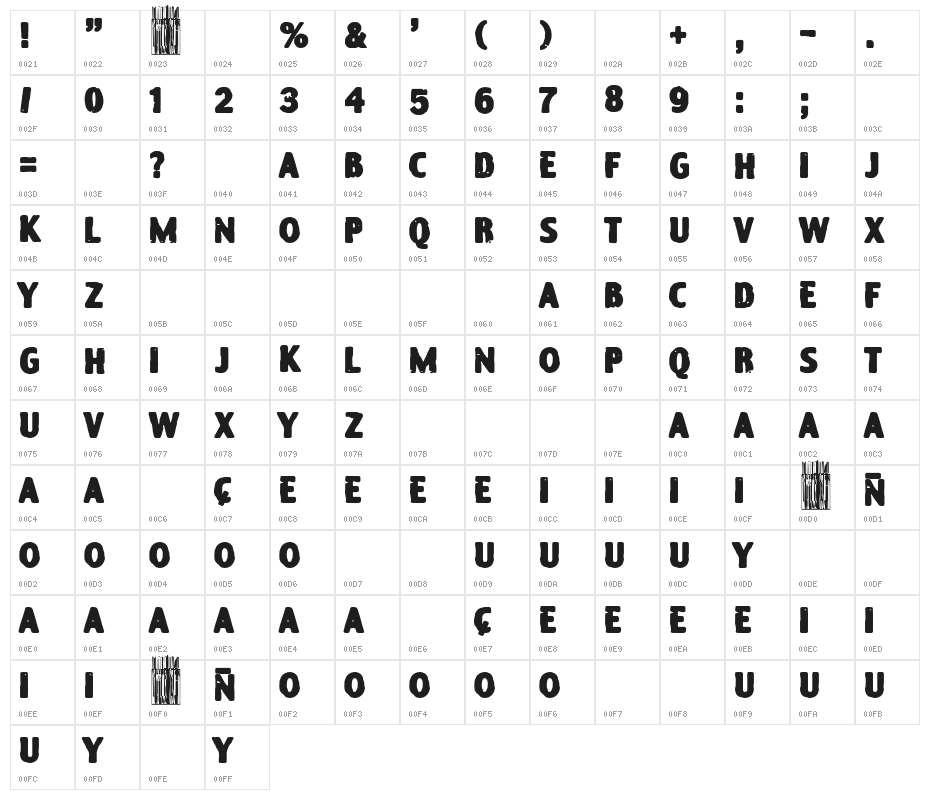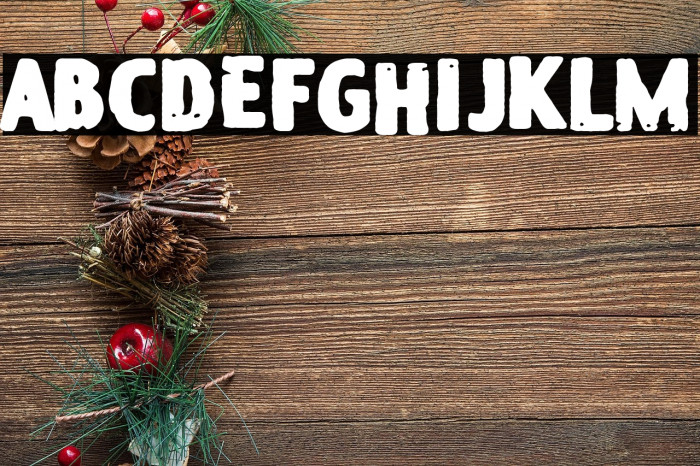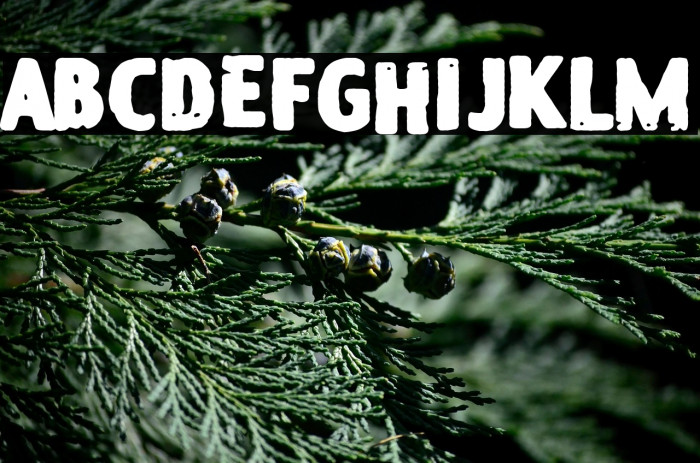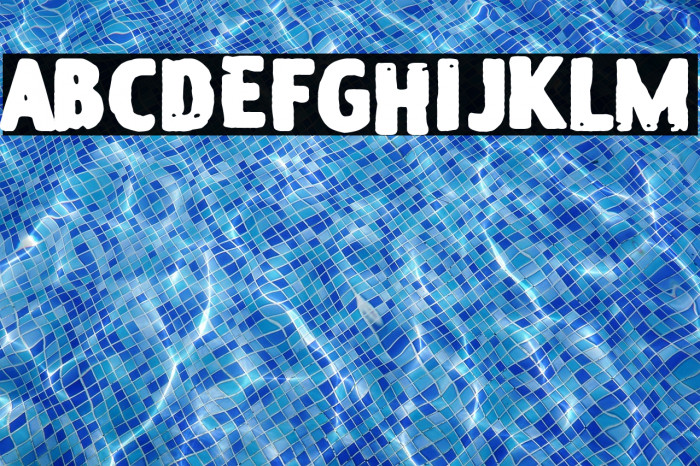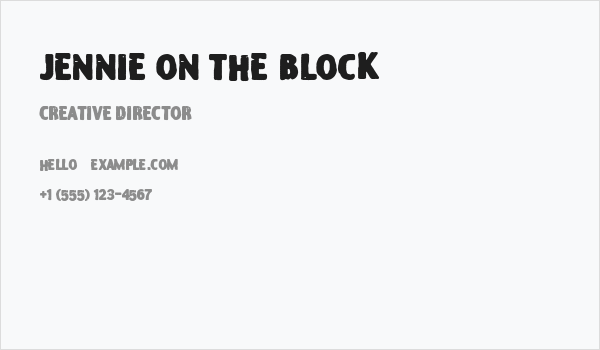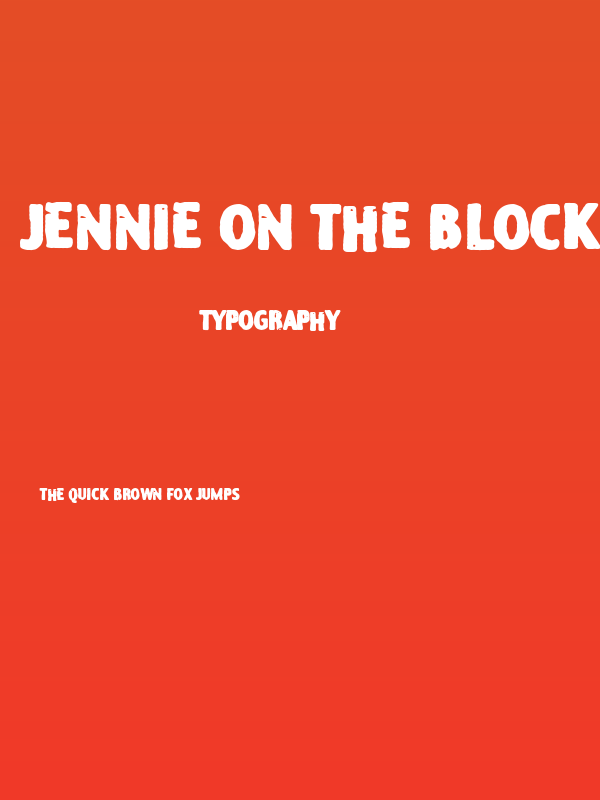
Jennie on the Block Font
Jennie on the Block Description
This font features a bold and rugged style with a distressed texture, giving it a hand-crafted, vintage appearance. The characters are thick and substantial, with uneven edges that suggest a woodcut or stamped effect. The uppercase and lowercase letters maintain a consistent weight, while the numbers and special characters follow the same bold design. This font's unique texture and boldness make it stand out, ideal for projects that require a strong visual impact.
| Use Case | Logos, Posters, Branding |
| Proposed Projects | Perfect for posters, logos, branding, and any design requiring a bold, vintage aesthetic. |